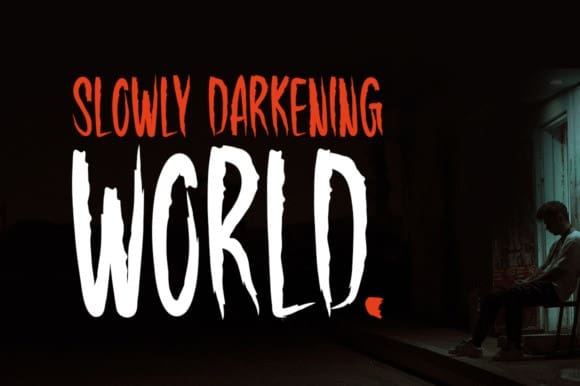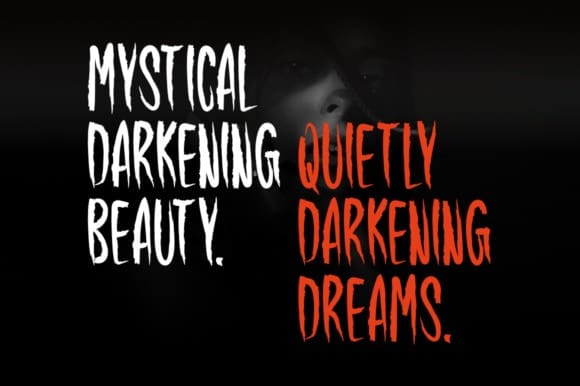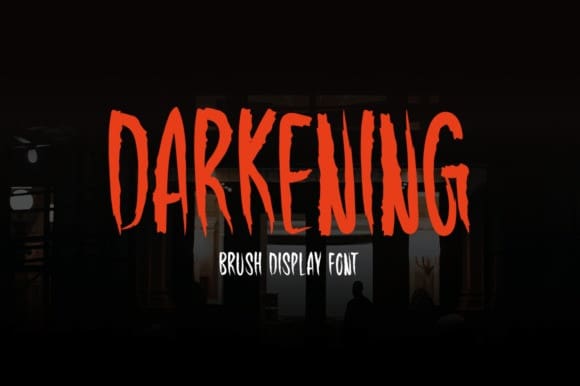
Darkening Brush Font
Darkening Brush Font, is a brush display font. This font works well for many different things, including stationary, logos, t-shirts, papers, print designs, website headers, picture frames, flyers, album covers, posters, and image sliders.